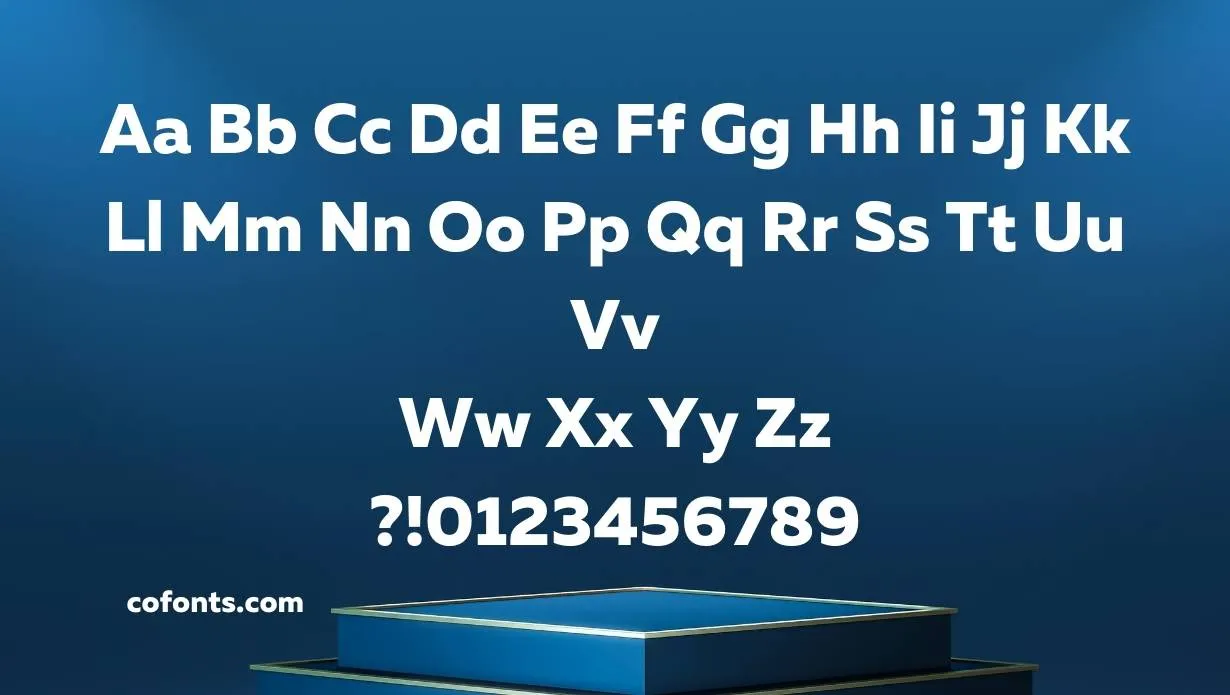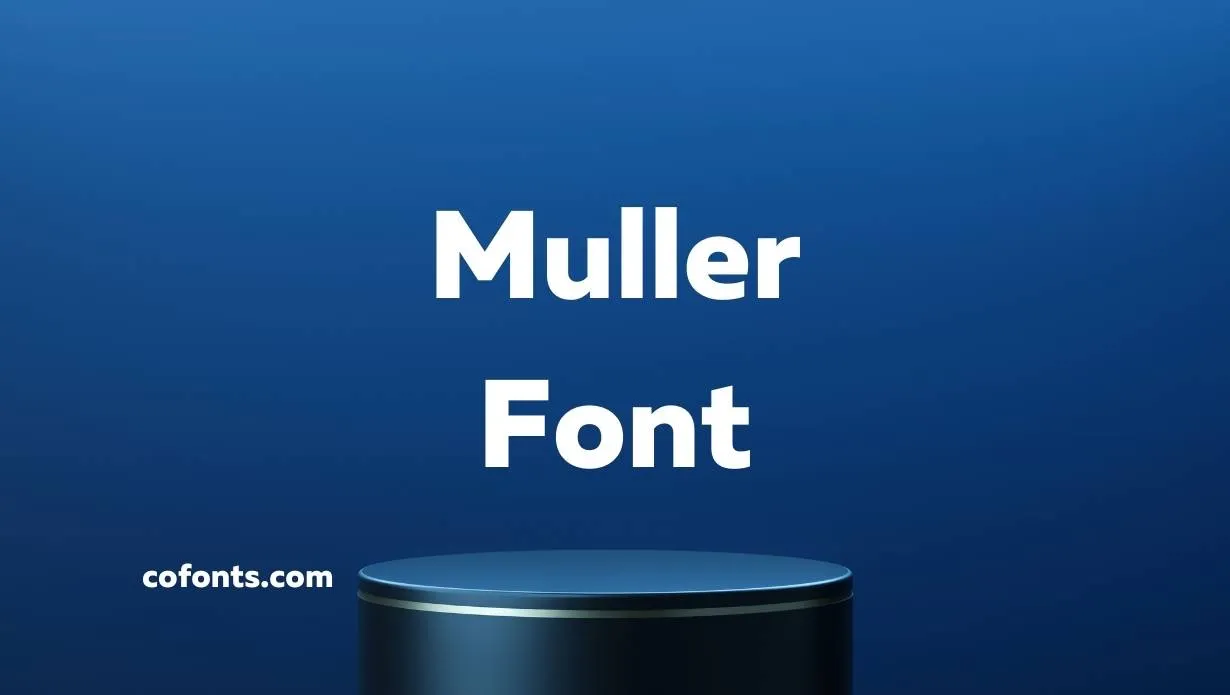
About Muller Font
Muller font is a modern and highly functional geometric sans-serif typeface. It features a clean, neutral design with subtle humanist details for warmth and clarity. The family includes a wide range of weights and styles, from thin to ultra-black, with matching italics. This versatility makes it suitable for almost any project, from branding and editorial design to user interfaces and web content. It provides a trustworthy and contemporary voice that enhances readability.